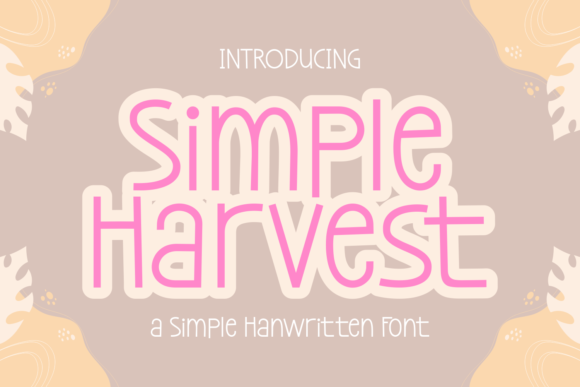
Simple Harvest: A Versatile Font for Creative Projects
If you're looking for a font that combines charm with clarity, Simple Harvest might be just what you need. This display font is designed to be both cute and neat, making it ideal for a wide range of creative applications. Whether you're working on a logo, a poster, or a social media graphic, Simple Harvest can add a touch of personality without sacrificing readability.
When and Why to Use Simple Harvest
Simple Harvest is perfect for situations where you want to convey a friendly, approachable vibe. Its clean lines and soft curves make it easy on the eyes, which is especially important in digital environments where users may be scanning text quickly. For example, if you're designing a website for a boutique or a lifestyle brand, this font can help create a warm and inviting atmosphere.
It also works well in print materials like brochures, flyers, and packaging. Imagine using Simple Harvest for a product label or a magazine cover—it adds a sense of authenticity and creativity that can set your design apart from more generic options.
Real-World Applications of Simple Harvest
For entrepreneurs and small business owners, Simple Harvest can be a valuable tool. If you're launching a new product or service, using this font in your branding can help communicate your message more effectively. It's especially useful for logos that need to be memorable but not overwhelming. A bakery, for instance, might use Simple Harvest in its logo to evoke a sense of home-made quality and simplicity.
Content creators on platforms like YouTube or Instagram can also benefit from Simple Harvest. Whether you're designing thumbnails, captions, or social media posts, this font can add visual interest while keeping your content easy to read. It's a great choice for channels that focus on lifestyle, fashion, or food, as it complements those themes naturally.
Writers and publishers might find Simple Harvest useful for book covers, magazine layouts, or even e-book titles. Its friendly appearance can make a book feel more accessible, which is particularly beneficial for genres like self-help, children's literature, or personal development. Think of a children's book with a playful title in Simple Harvest—it immediately feels engaging and fun.
Who Can Benefit from Simple Harvest?
Graphic designers often look for fonts that are both stylish and functional. Simple Harvest offers a balance between the two, making it a go-to choice for many professionals. It’s especially helpful when designing for clients who want something unique but not too bold. A designer working on a corporate identity project might use Simple Harvest for a tagline or a secondary heading to add a subtle touch of character.
Students and educators can also use Simple Harvest in educational materials. For instance, a teacher creating a presentation or a handout might choose this font to make the content feel more engaging. It's less formal than traditional serif fonts, which can make learning feel more relaxed and approachable.
Things to Consider Before Using Simple Harvest
Before choosing Simple Harvest, it's important to consider the context in which it will be used. While it's great for headlines and logos, it may not be the best choice for long blocks of text. The font's style is more suited for short phrases or decorative elements rather than body copy.
Also, think about the audience you're targeting. If your design is meant for a professional or high-end market, you may want to pair Simple Harvest with a more sophisticated font to maintain the right tone. On the other hand, if your goal is to create a casual, friendly image, Simple Harvest can be an excellent fit.
How to Get Started with Simple Harvest
If you're interested in using Simple Harvest, start by exploring where it fits best in your projects. Try it out in different sizes and formats to see how it looks in various contexts. Many designers recommend testing a font in real-world scenarios before committing to it for a final design.
Conclusion: Simple Harvest for Every Creative Need
Simple Harvest is more than just a pretty font—it's a practical tool that can enhance a variety of creative projects. From logos and websites to social media and print materials, this font offers a versatile solution for designers and creators looking to add a touch of warmth and personality to their work. Whether you're a seasoned professional or just starting out, Simple Harvest can help bring your vision to life in a way that feels both authentic and effective.